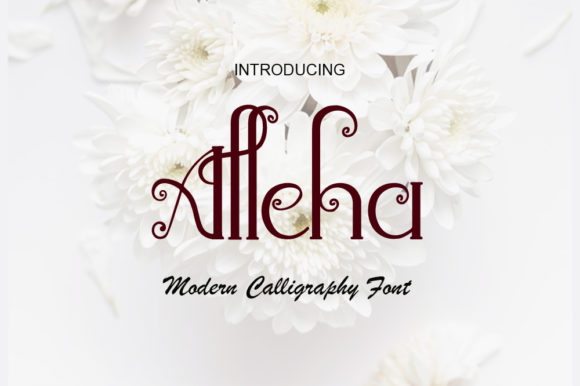
Unleash the Elegance of Alleha: A Classic Script Font That Captivates
In the realm of digital design, Alleha Font stands tall as a masterpiece of calligraphy, a true testament to the enduring allure of handwritten artistry. Each letter, meticulously crafted with unwavering attention to detail, exudes a timeless charm. Alleha is not merely a font; it's an eloquent expression of creativity that breathes life into your designs.
With its innate ability to evoke emotions and convey messages with grace, Alleha becomes more than just a visual element; it transforms into an extension of your creative voice. Whether you're crafting heartfelt invitations, designing captivating posters, or adding a dash of elegance to your social media posts, Alleha becomes your trusted companion, guiding you towards design excellence.
Alleha's versatility knows no bounds. Its delicate strokes and graceful curves lend themselves effortlessly to a multitude of creative endeavors. Allow Alleha to adorn your wedding invitations with a touch of timeless romance, or harness its captivating essence to create breathtaking posters that command attention. Unleash your imagination and let Alleha be the brush that paints your creative vision into reality.